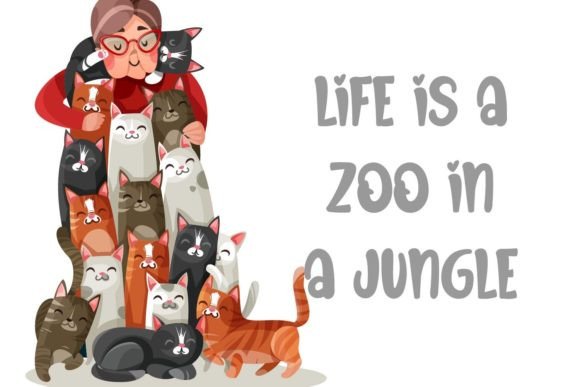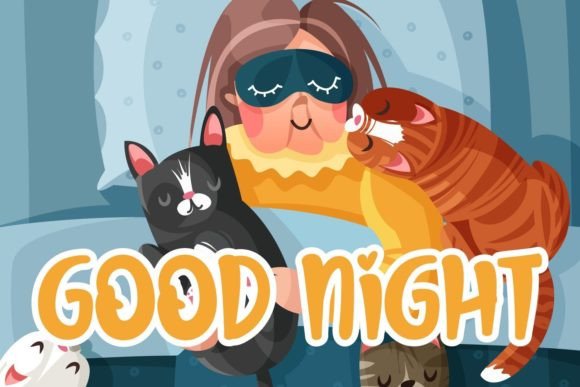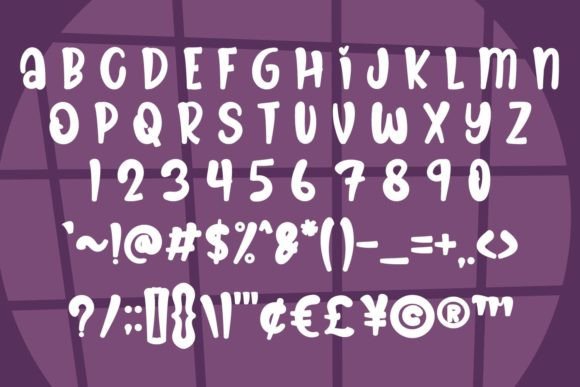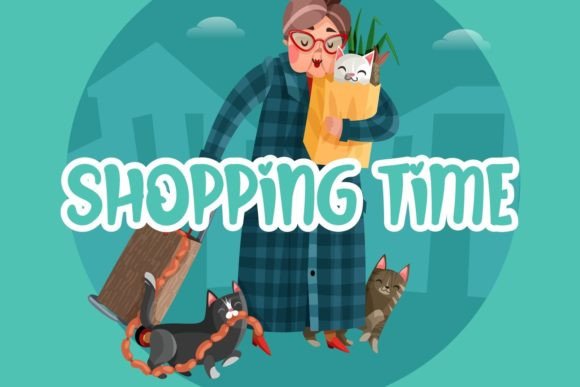
Introduction to Life Love Font
Life Love is a unique and cute display font.
Why Choose Life Love Font?
Life Love Font offers exceptional quality and versatility, making it a valuable addition to your design toolkit. Whether you’re creating for personal projects or commercial use, Life Love Font delivers professional results.